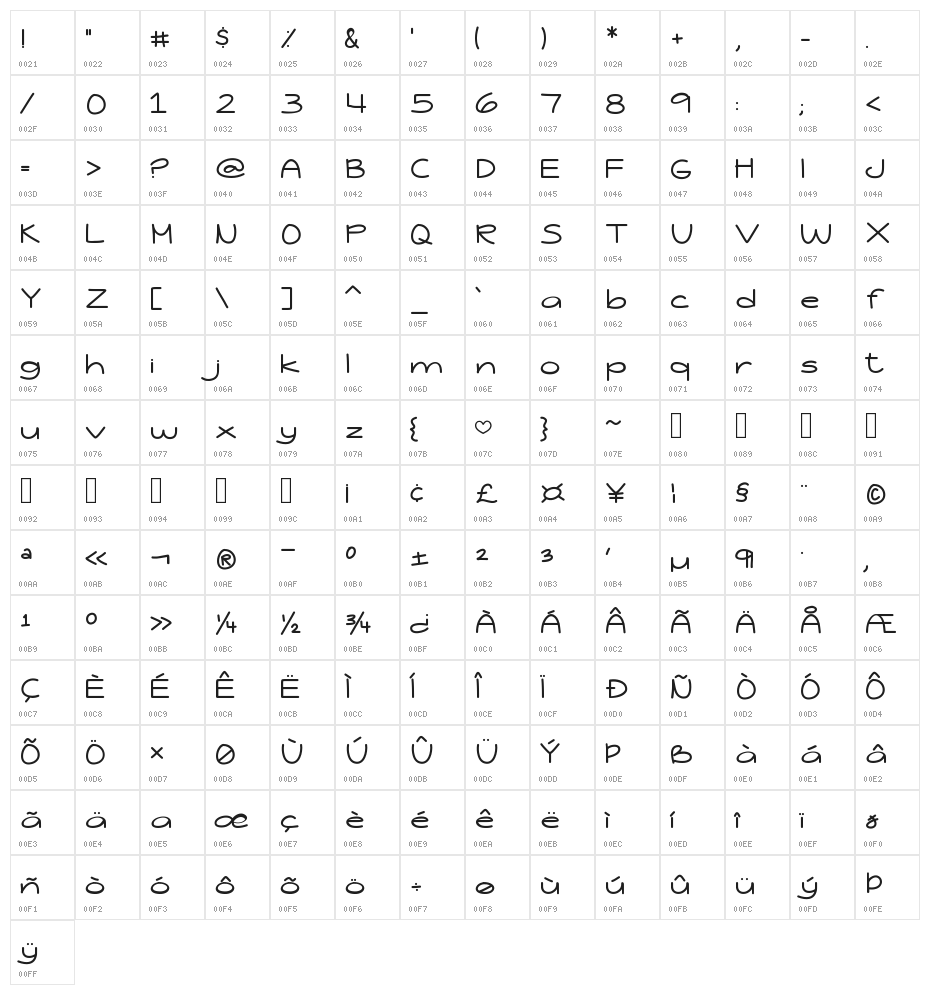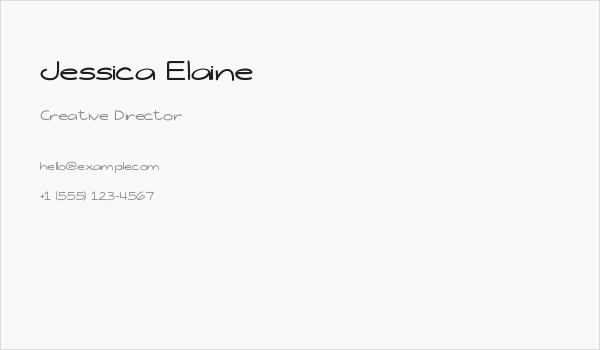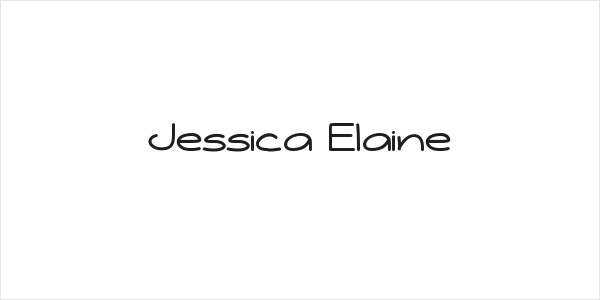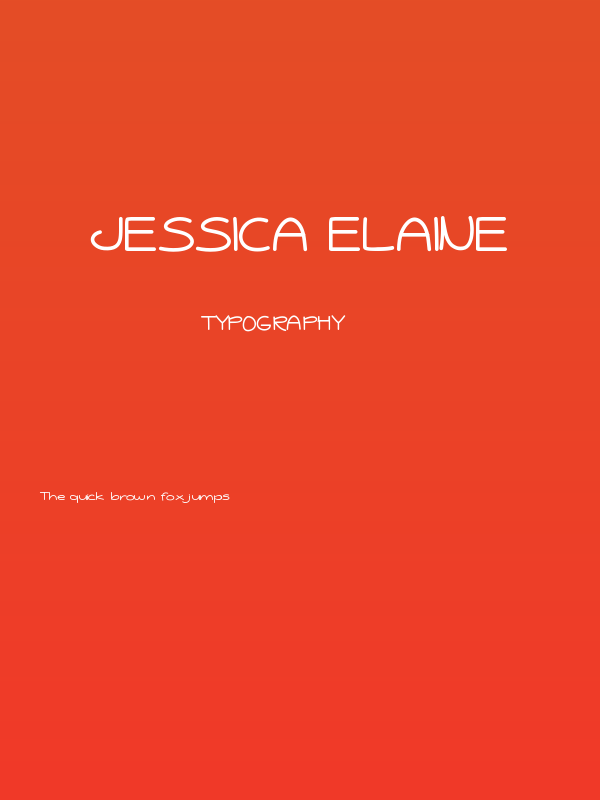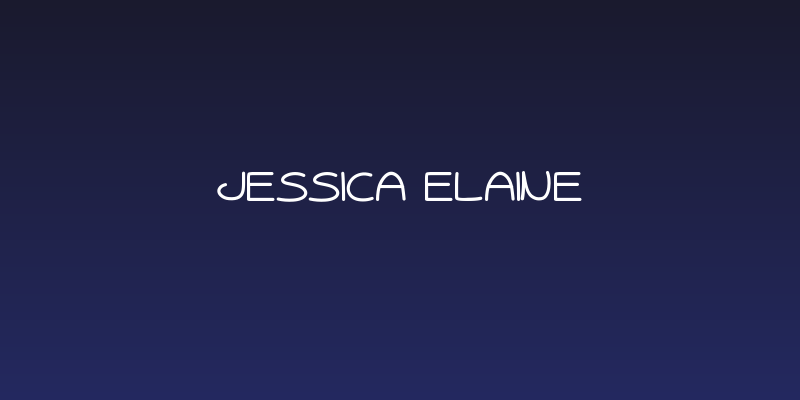
Jessica Elaine Font
Jessica Elaine Description
This font features a playful and rounded style, characterized by its smooth, flowing lines and slightly whimsical appearance. The letters have a consistent stroke width, contributing to a harmonious and friendly look. The rounded edges and open counters enhance its readability, making it suitable for informal and casual settings. The numerals and special characters maintain the same playful aesthetic, ensuring a cohesive design across all elements. This font's approachable nature makes it ideal for projects that require a touch of personality and warmth.
Overall StylePlayful
Use CaseHeadlines, Logos, Informal Text
Proposed ProjectsIdeal for children's books, playful branding, greeting cards, and casual invitations.